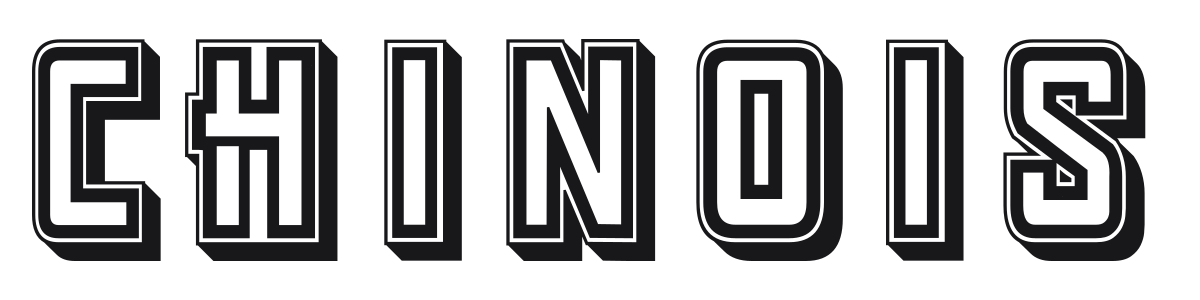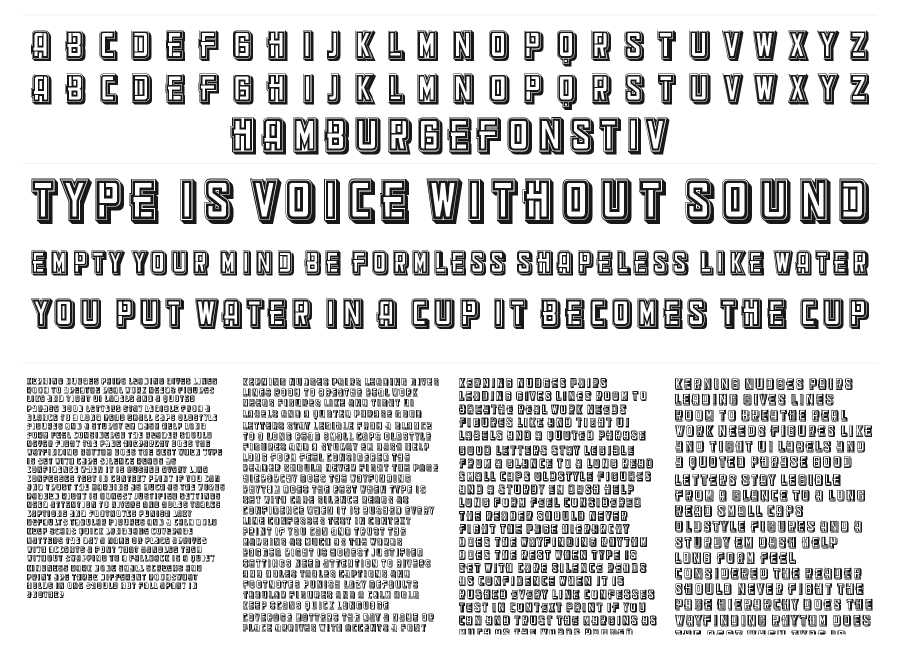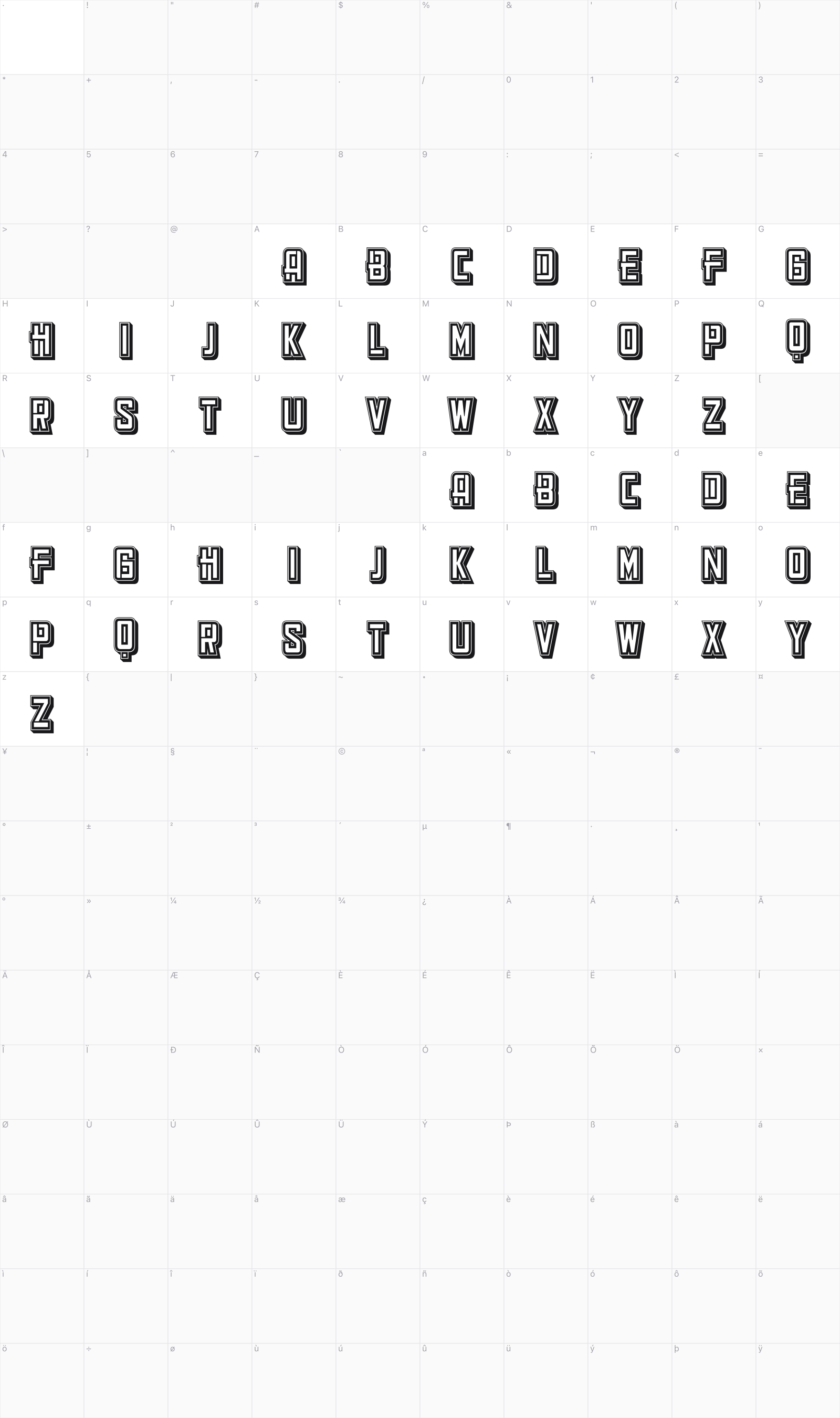
Chinois
Chinois is a bold condensed display font with a heavy slab construction, inline detailing, and a thick drop shadow that stacks together for a punchy dimensional effect. The style borrows from mid-century American signage and novelty restaurant lettering, with a nod to chinoiserie-inspired aesthetics. It reads instantly at large sizes and carries a lot of retro personality.